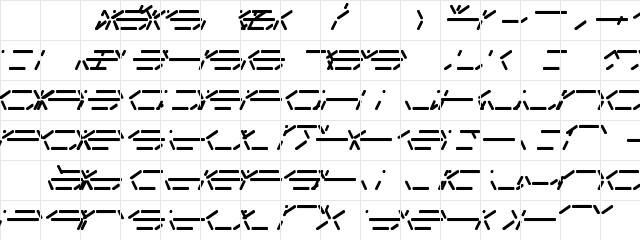
Fifteen Segment Rush Mono LDR uses fixed-width spacing throughout, giving it the structured, systematic character associated with coding environments and technical documentation.
Pro Tip: Use Fifteen Segment Rush Mono LDR with slightly increased line-height for extended reading - fixed-width spacing can feel dense in longer passages without extra breathing room.